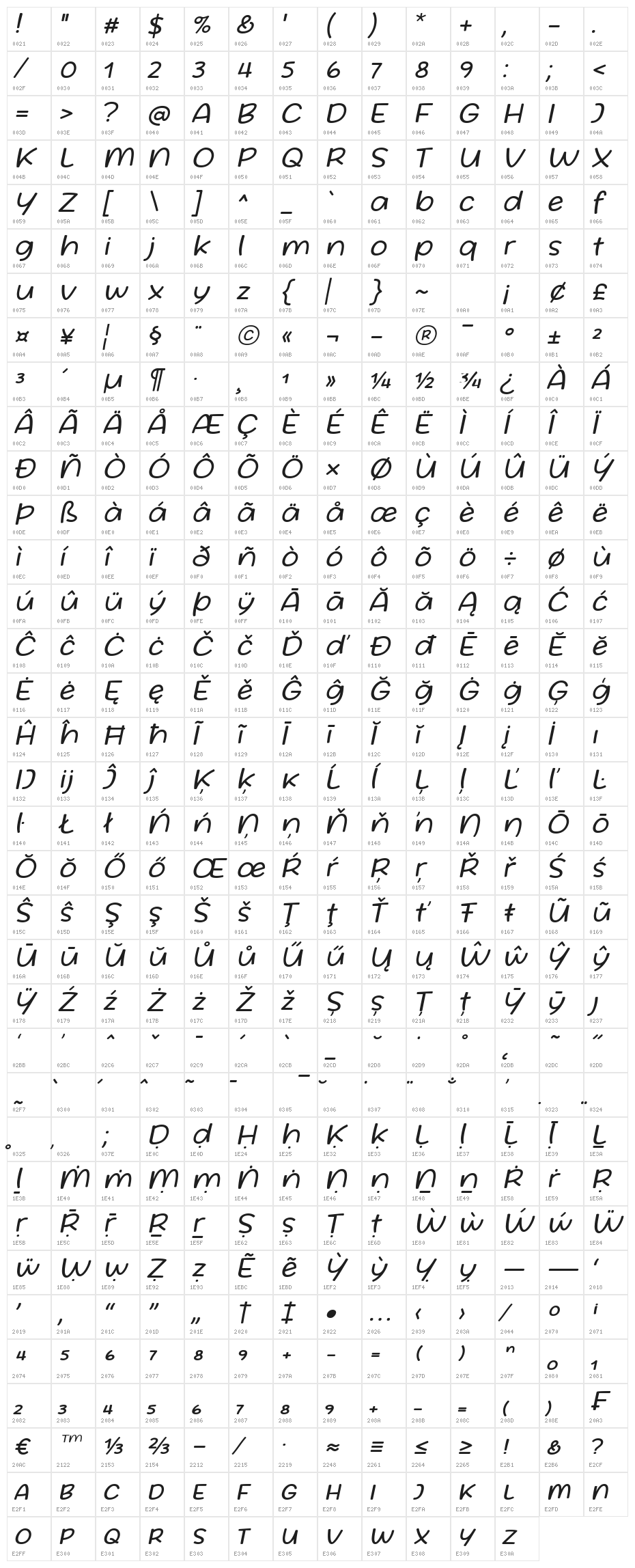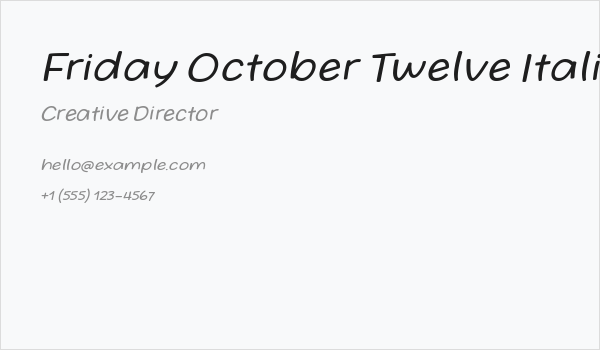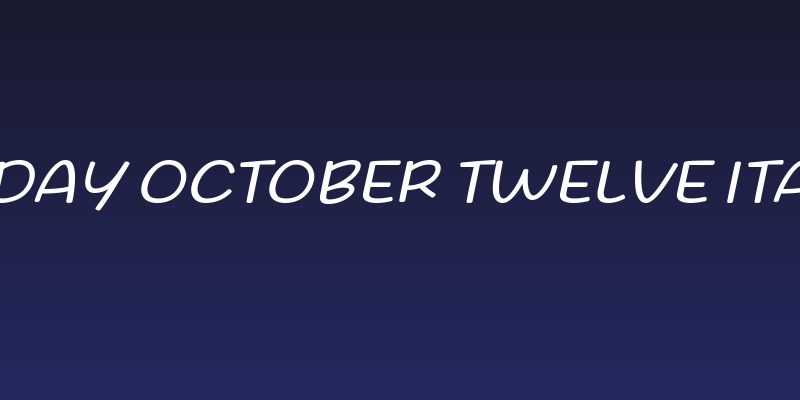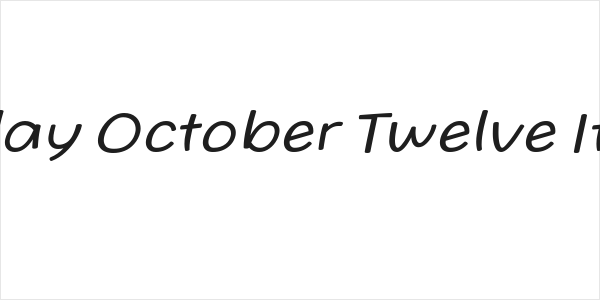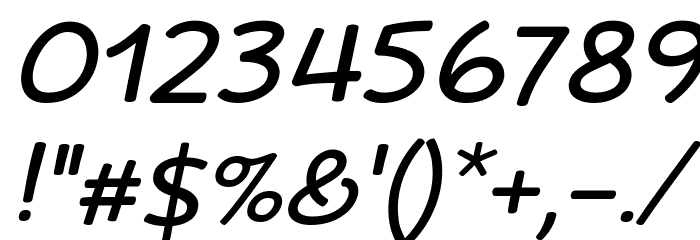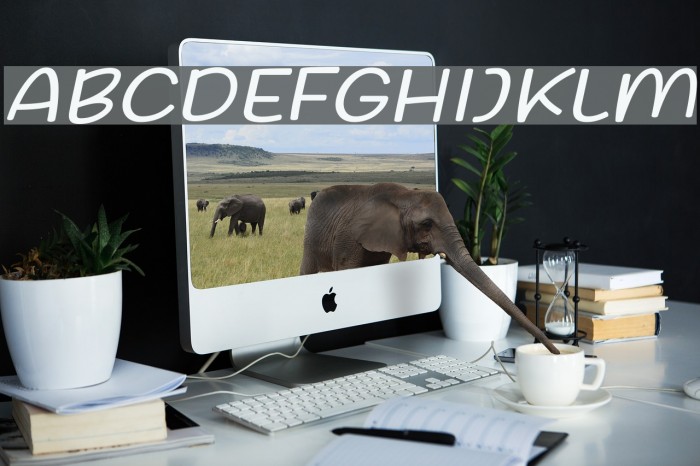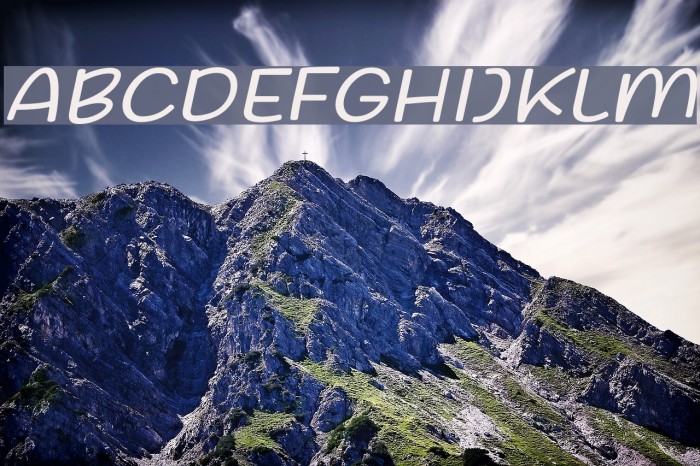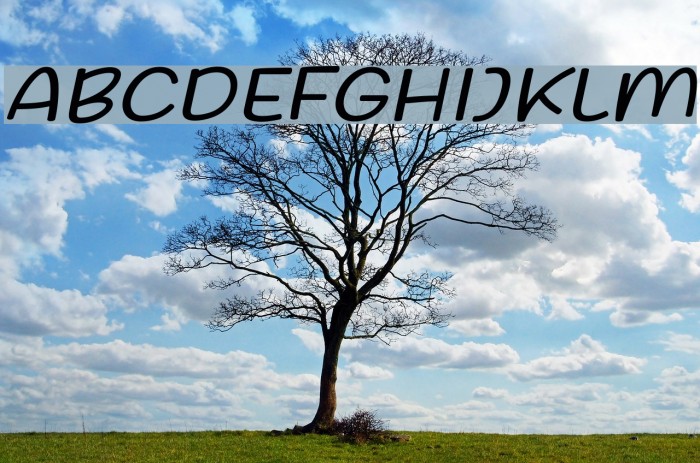
Friday October Twelve Italic Font
Friday October Twelve Italic Description
This font features a lively and dynamic italic style, characterized by smooth, flowing curves and a slightly forward-leaning posture. The letters are well-balanced with a consistent stroke width, giving it a cohesive and harmonious appearance. The uppercase letters maintain a sense of elegance and sophistication, while the lowercase letters exhibit a friendly and approachable feel. The numerals are clear and legible, making them suitable for various applications. Special characters are thoughtfully designed to match the overall aesthetic, ensuring versatility in usage.
| Use Case | Logos, Headlines, Invitations |
| Proposed Projects | Ideal for creative projects such as invitations, greeting cards, branding, and advertising materials that require a personal and elegant touch. |